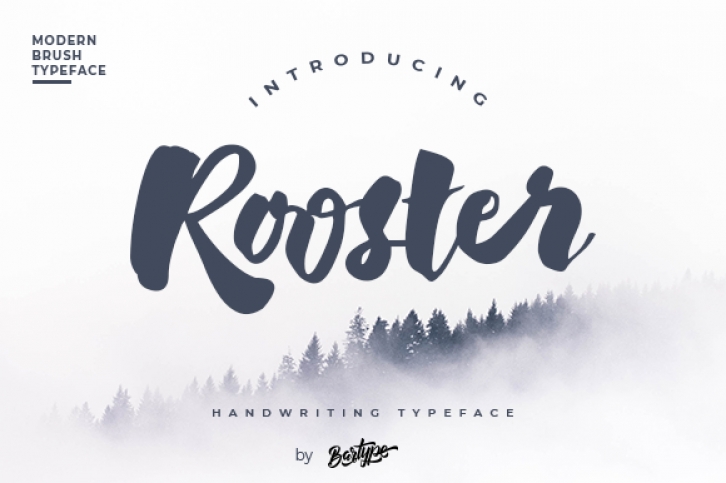
Rooster is a chic and trendy script font. It looks stunning on wedding invitations, thank you cards, quotes, greeting cards, logos, business cards and every other design which needs a handwritten touch.